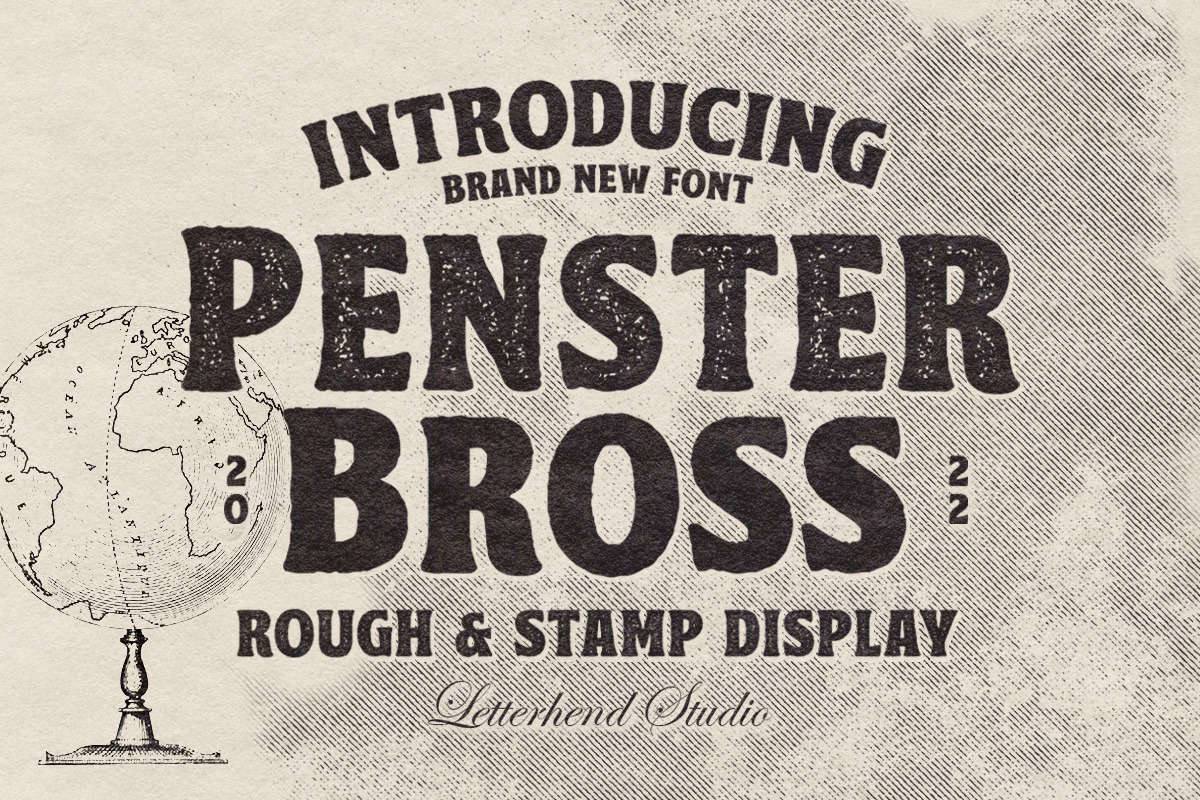
Penster Bross - Rough Display Font
Penster Bross is a standout bold font with rough and stamp version. The texture of the font makes this font looks great for retro and vintage theme.This font is also suitable to be applied especially in logo, and the other various formal forms such as invitations, labels, logos, magazines, books, greeting / wedding cards, packaging, fashion, make up, stationery, novels, labels or any type of advertising purpose.
- rough and stamp version